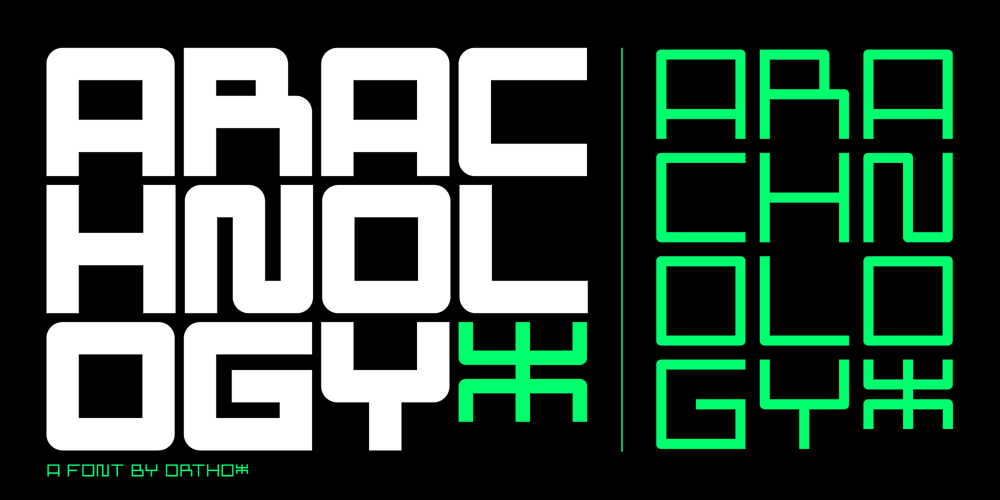
Arachnology Font Family was designed by Omar Sacca and published by Ortho. Arachnology contains 2 styles and family package options. If you’re looking for a sci-fi inspired, retro-futuristic display font with limitless applications, look no further than Arachnology.Arachnology is a stylish, confident, and versatile display font inspired by the neo-futuristic graphic design movements of the late 90’s & early 2000’s; and takes cues from the extremely prevalent Japanese and European design influence of that time period. All while refreshing it for a new generation of creatives.Featuring an extensive set of Western alphabetical characters, numbers, special characters, and punctuation; Arachnology includes everything creatives (professional and hobbyist alike) demand from a modern, creative display font.”Arachnology Standard” provides highly-stylized glyphs, apt spacing, weight, and contrast for high legibility in any use-case! “Arachnology Heavy Titling” provides all those benefits, with an additional feature! All its characters (both upper and lowercase) share a single height. Experiment with mixing upper and lowercase glyphs to find the combination that best suits your titles, and especially your personal taste!